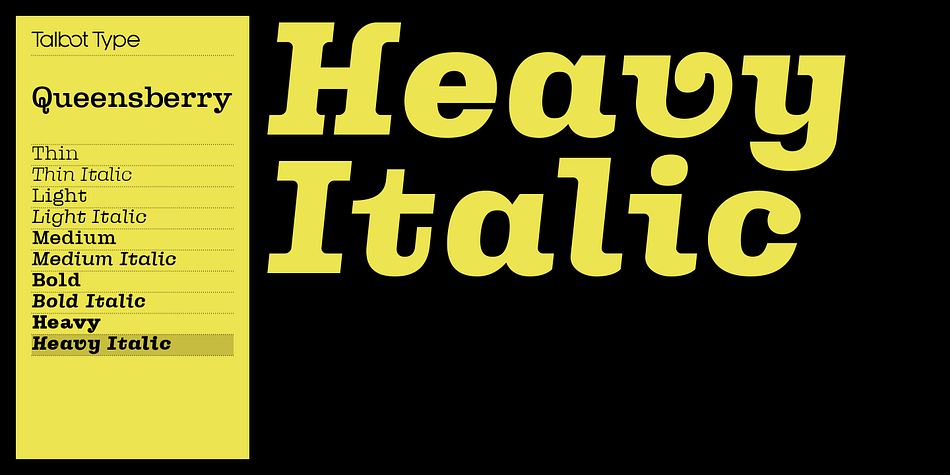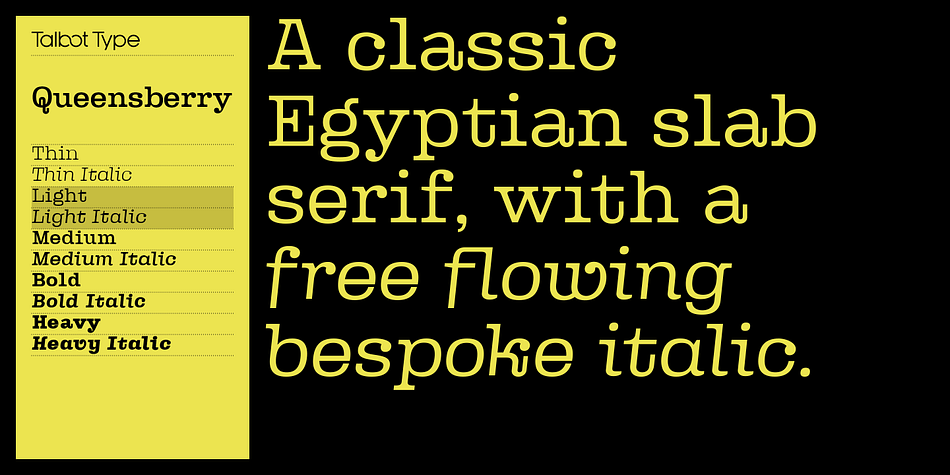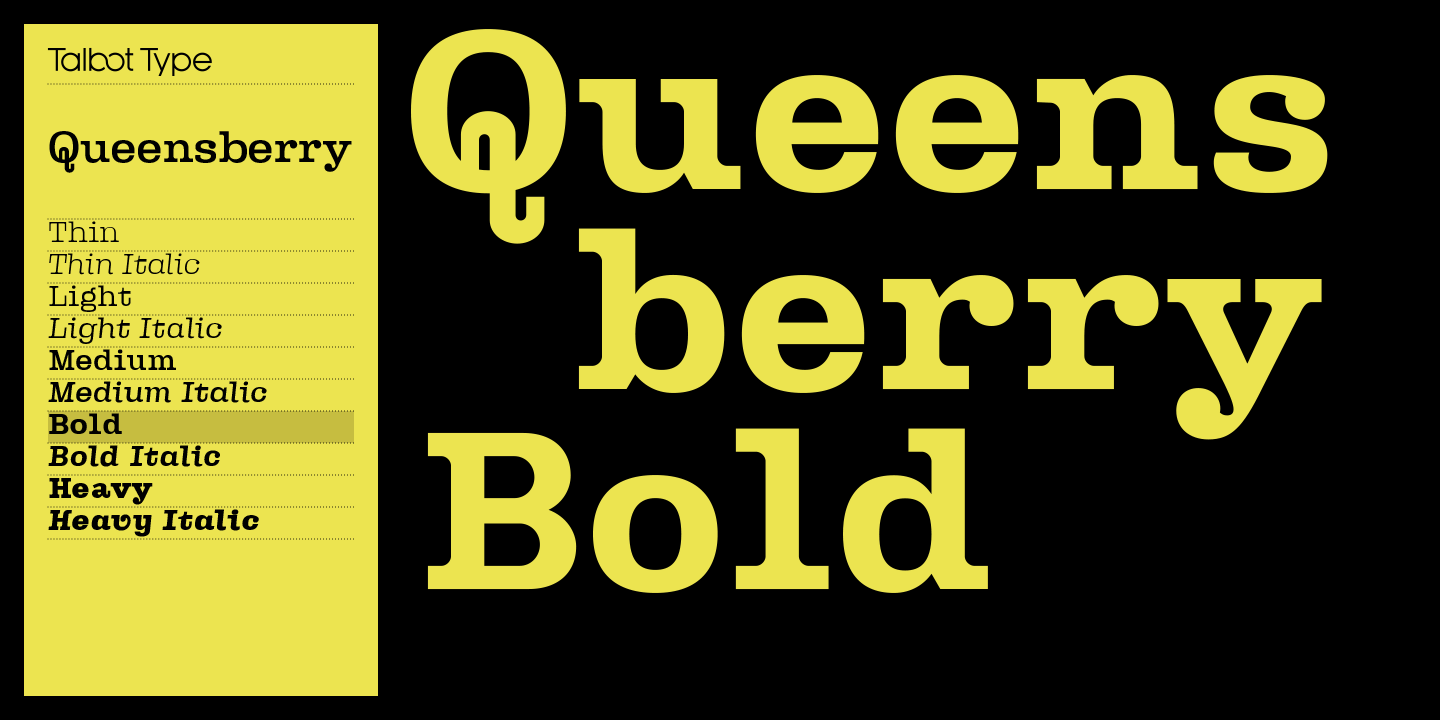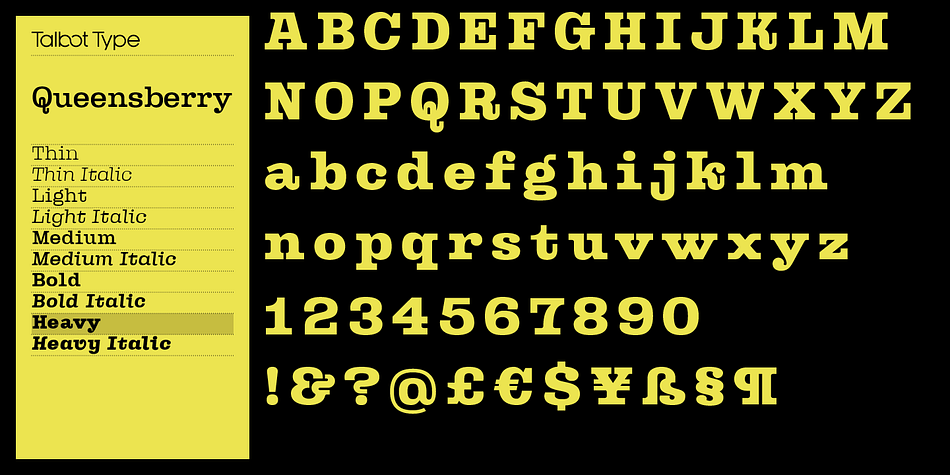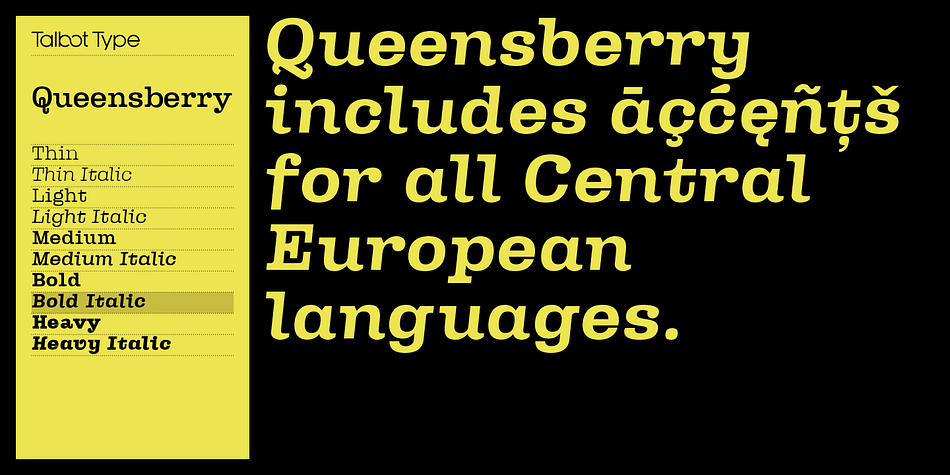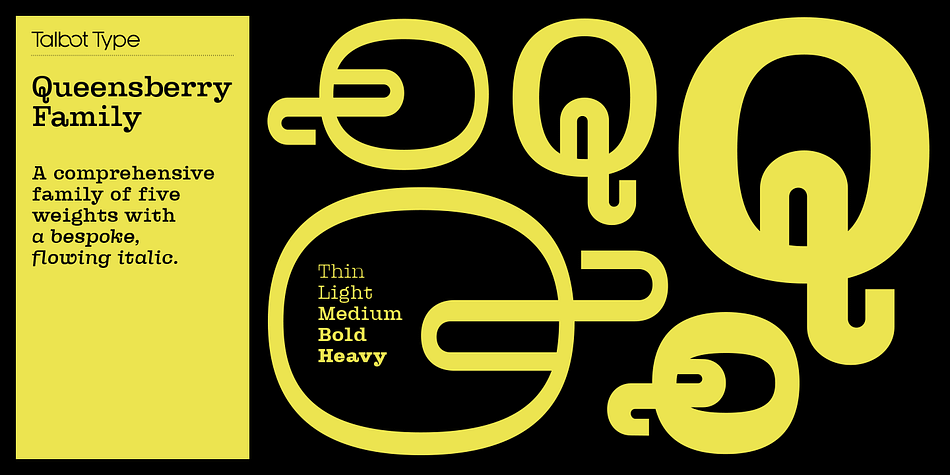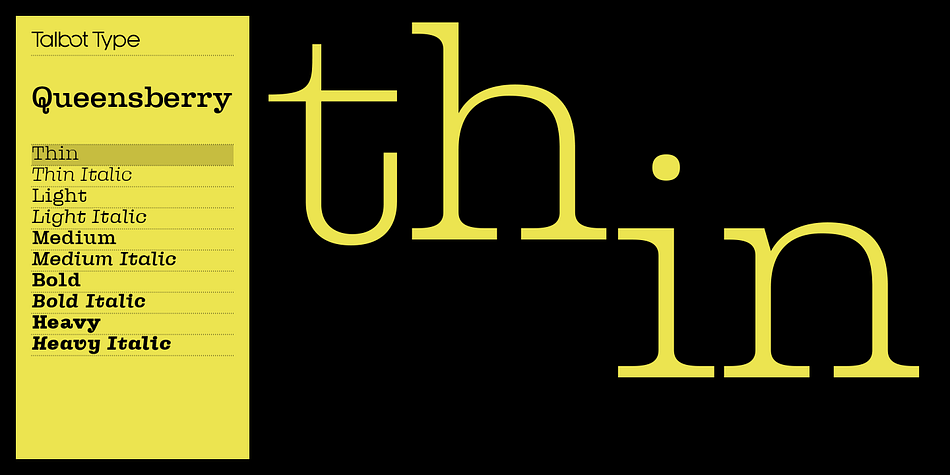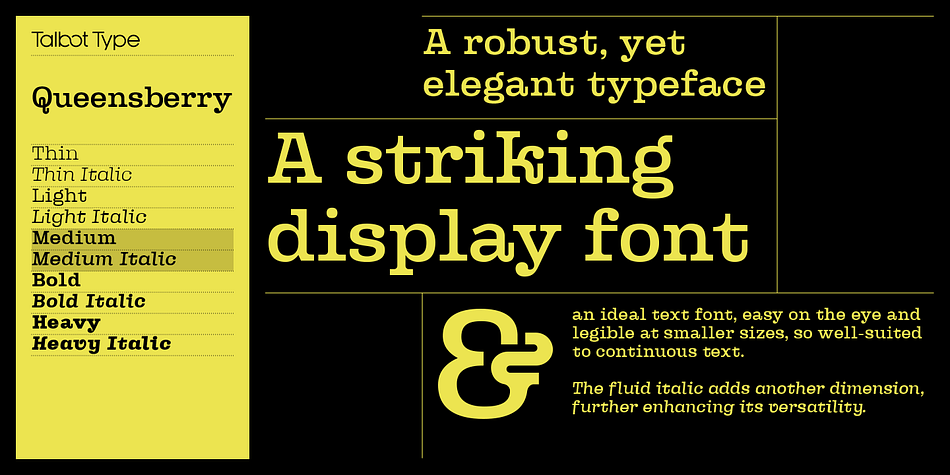
Queensberry
Designed by Adrian Talbot, Queensberry is a slab serif, western and wood type font family. This typeface has ten styles and was published by Talbot Type.
Queensberry is a contemporary take on the classic, Egyptian slab-serif style. It is a highly legible text font and an elegant display font at larger sizes. Its versatility is further enhanced by the free-flowing, bespoke italic, which is loaded with personality.
Queensberry is available in a full family of five weights and includes a full range of accented characters.